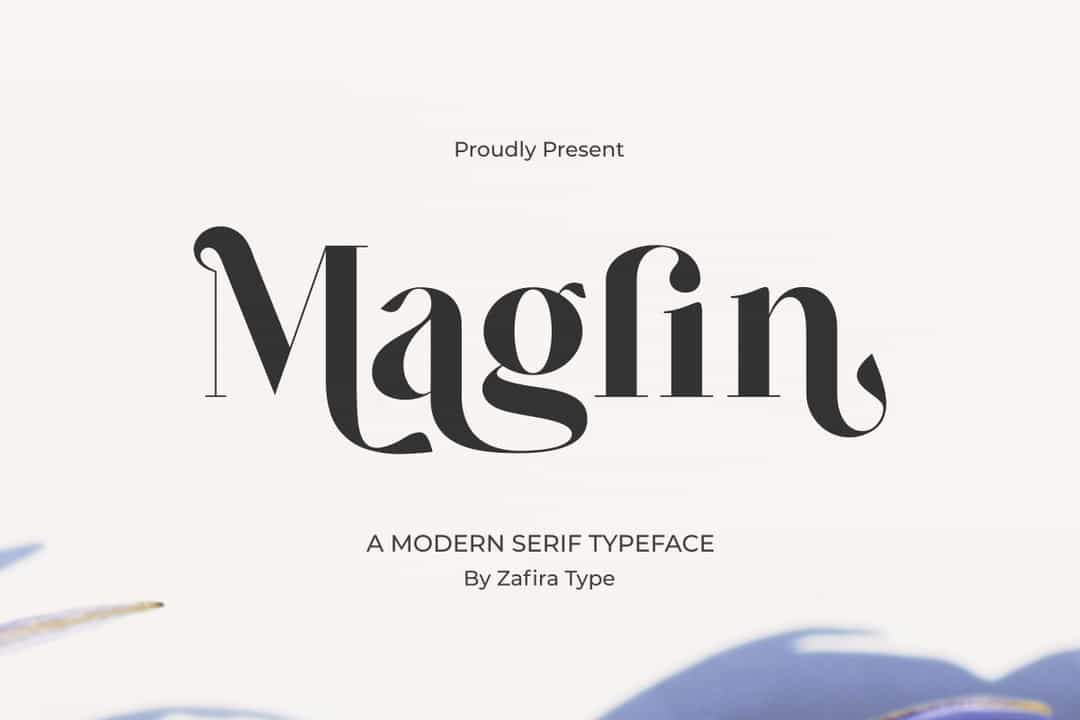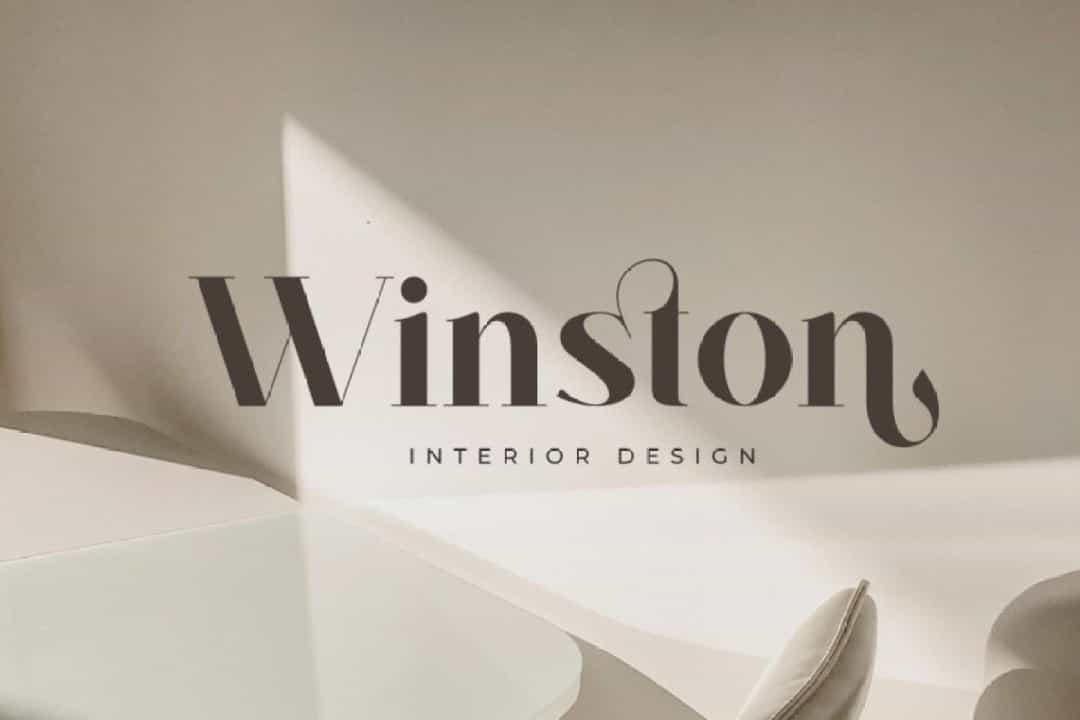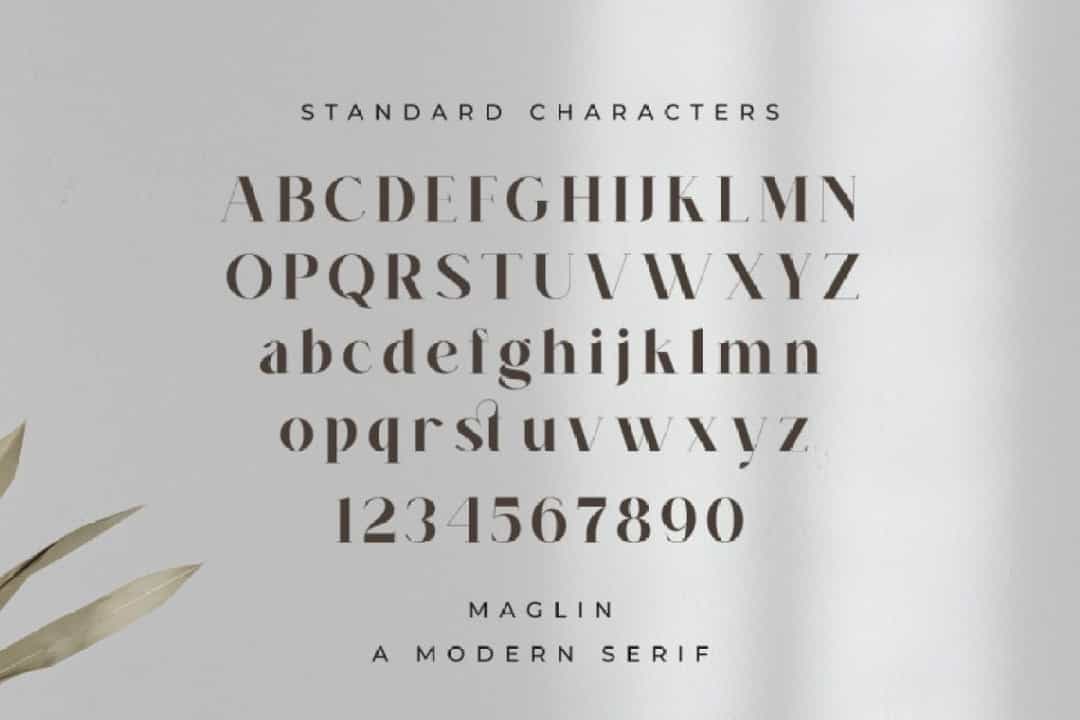
Maglin is an elegant yet contemporary serif typeface with soft yet powerful lines that mixes traditional elements with modern elements. Its well-balanced proportions and precise features make Maglin an excellent choice for design projects ranging from print design to digital display.